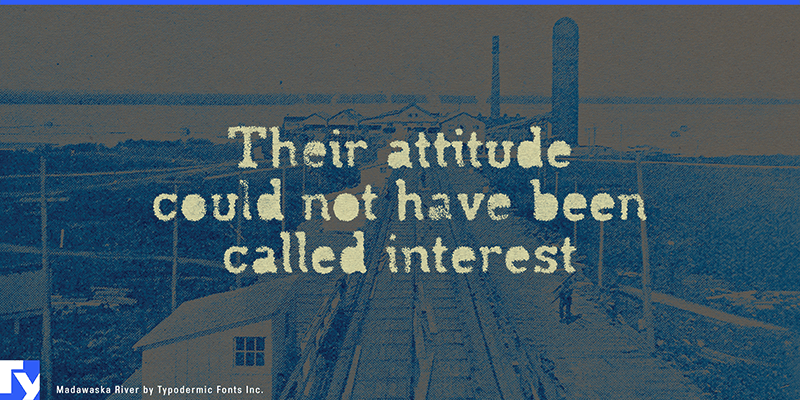
Madawaska River
Madawaska is a classic slab serif with a few unexpected quirks that keep it from feeling like a museum piece. Sturdy serifs and relaxed proportions give it a dependable structure, while subtle cuts in the lowercase add warmth and personality. Textured variations introduce a tactile, timeworn character, making the design especially well suited to vintage packaging, heritage branding, book covers, and editorial work. Rooted and versatile, Madawaska brings together clarity, character, and a quiet sense of tradition. This font includes a license that allows free commercial use: sometimes referred to as a desktop license. This allows you to install the font on a computer and use it to create posters, web graphics, game graphics, t-shirts, videos, signs, logos and more. Read the license agreement for details. If you'd like to embed this font in an app, on the web or anything that's not covered by the desktop license agreement, visit the link below. You'll find distributors who offer different types of licenses, or you can contact me for help. https://typodermicfonts.com/madawaska/ This free font is part of a larger font family. Check out the rest of the family through the link above.